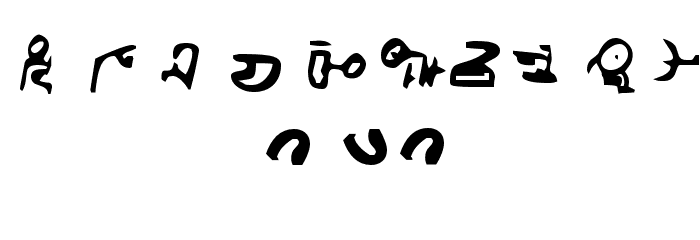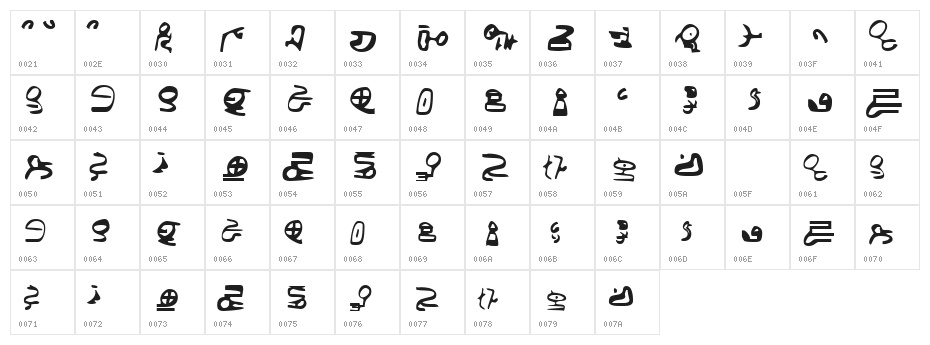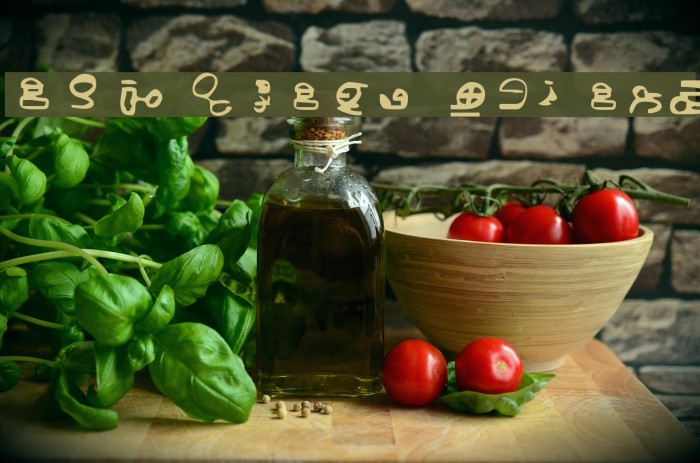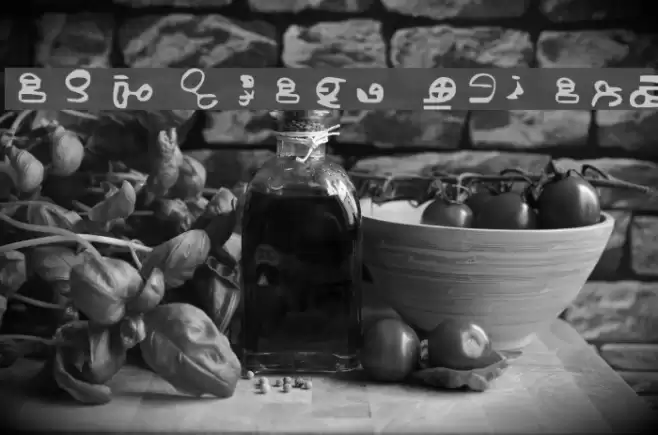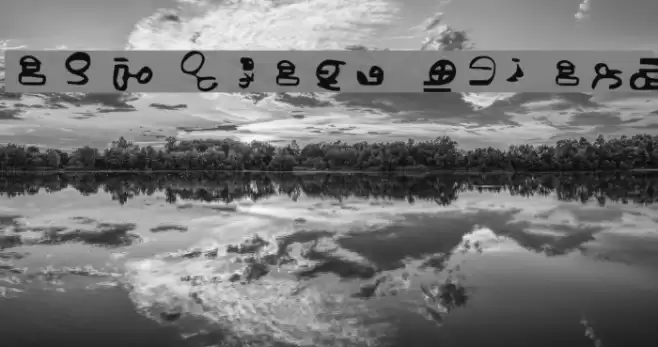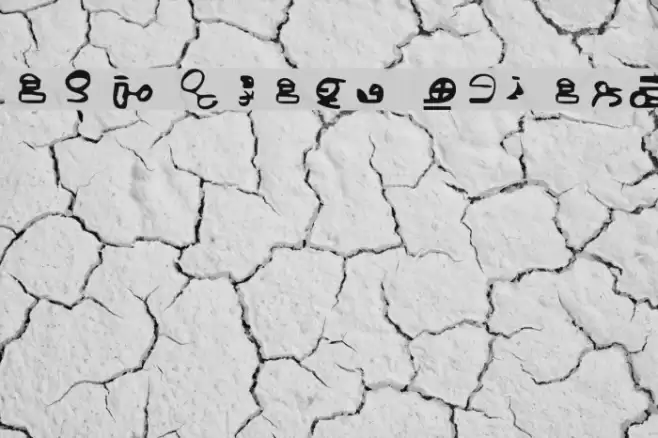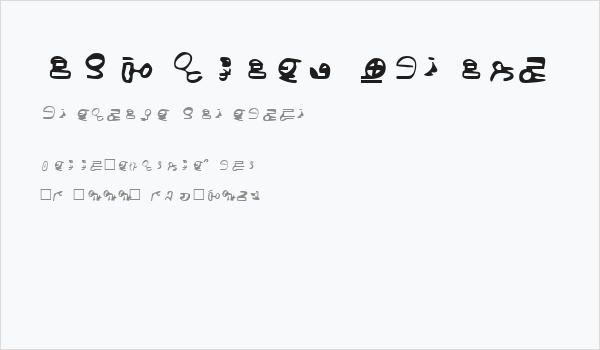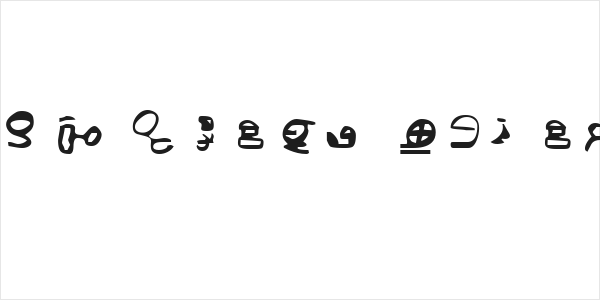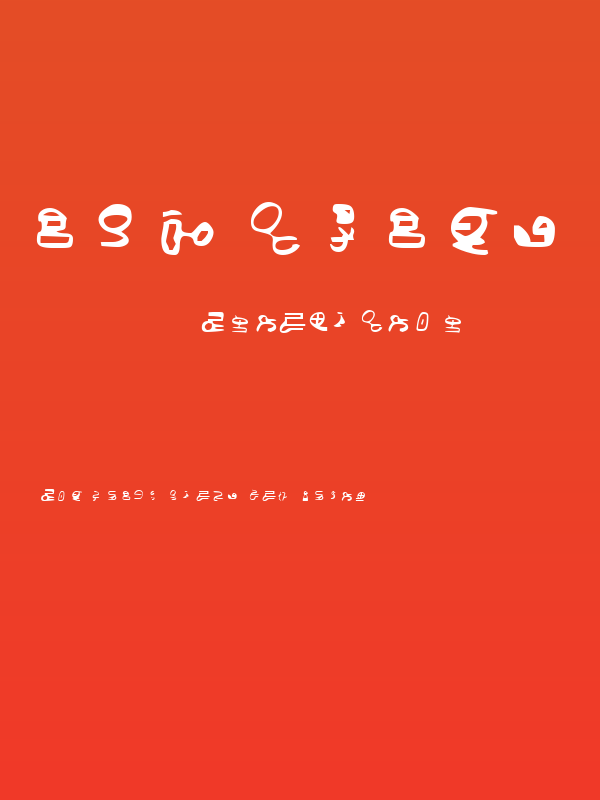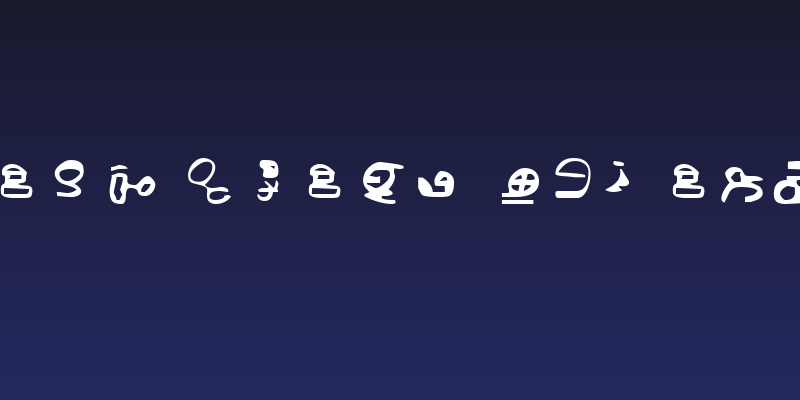
ID4 Alien Script Font
ID4 Alien Script Description
This font presents an imaginative and otherworldly design, featuring characters that resemble alien symbols or hieroglyphs. The glyphs are highly stylized with a mix of curves, loops, and angular shapes, creating a sense of mystery and intrigue. Each character is unique, with varying thickness and abstract forms that suggest a futuristic or extraterrestrial theme. The overall appearance is bold and striking, making it suitable for creative projects that require a distinctive and unconventional look.
| Overall Style | Futuristic, Extraterrestrial |
| Use Case | Logos, Posters, Creative Displays |
| Proposed Projects | Ideal for sci-fi themed designs, video game interfaces, movie posters, or any project requiring a unique, extraterrestrial aesthetic. |